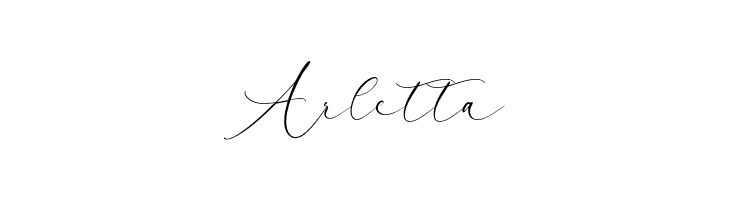
• Arletta फ़ॉन्ट
A sophisticated script font with elegant flourishes and high contrast.
• Arley फ़ॉन्ट
A playful and whimsical script font with flowing, interconnected letters.
• Arlinda फ़ॉन्ट
A bold, expressive handwritten font with a lively brush-like style.
• ArlingtonDEMO फ़ॉन्ट
A bold, decorative font with vintage flair and intricate detailing.
• ArlingtonDEMO फ़ॉन्ट
A bold, decorative font with vintage Western flair and high contrast strokes.
• Arlista फ़ॉन्ट
A graceful script font with fluid, handwritten elegance.
• Arlobuns Free फ़ॉन्ट
A modern, handwritten font with fluid, cursive strokes and elegant connections.
• Arlon SemiBold DEMO फ़ॉन्ट
A modern, rounded sans-serif font with smooth curves and a clean look.
• Arma Blanca BCN फ़ॉन्ट
A bold, distressed font with a gritty, urban style and splatter-like details.
• ARMADA/1991 Regular फ़ॉन्ट
A bold, futuristic font with geometric shapes and dynamic curves.